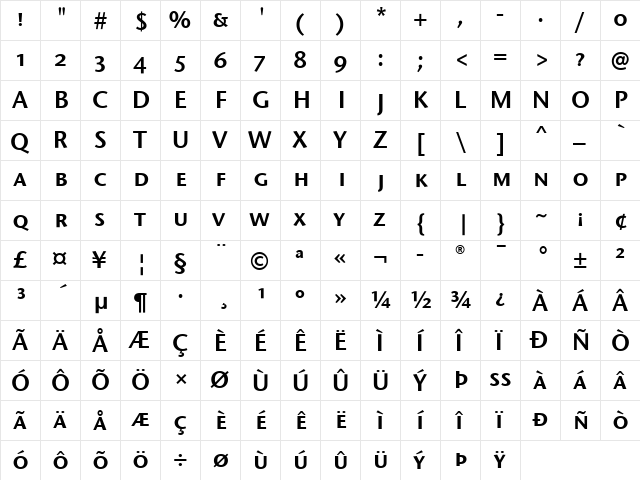
StoneSansSCITC Regular Font Preview
StoneSansSCITC Regular
StoneSansSCITC Regular Font Details
| Foundry | International Typeface Corporation |
Design Context for StoneSansSCITC Typeface
StoneSansSCITC offers clean, dependable letterforms without strong stylistic allegiance, making it a practical choice for designers who need flexibility.